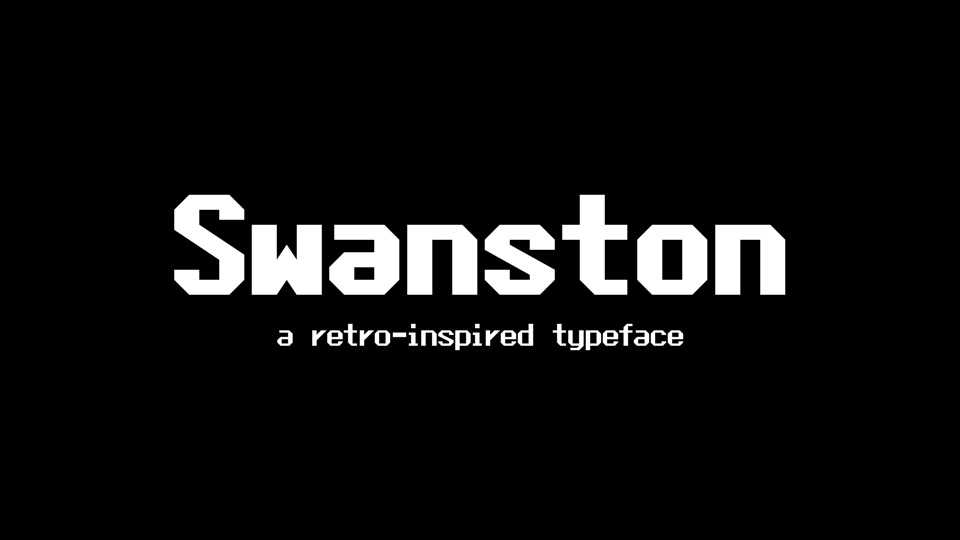
Download Swanston font, a monospaced retro-inspired outline typeface designed to resemble bitmap fonts of times past while still being scalable to higher DPI monitors.
Designer: Liam Whitelaw